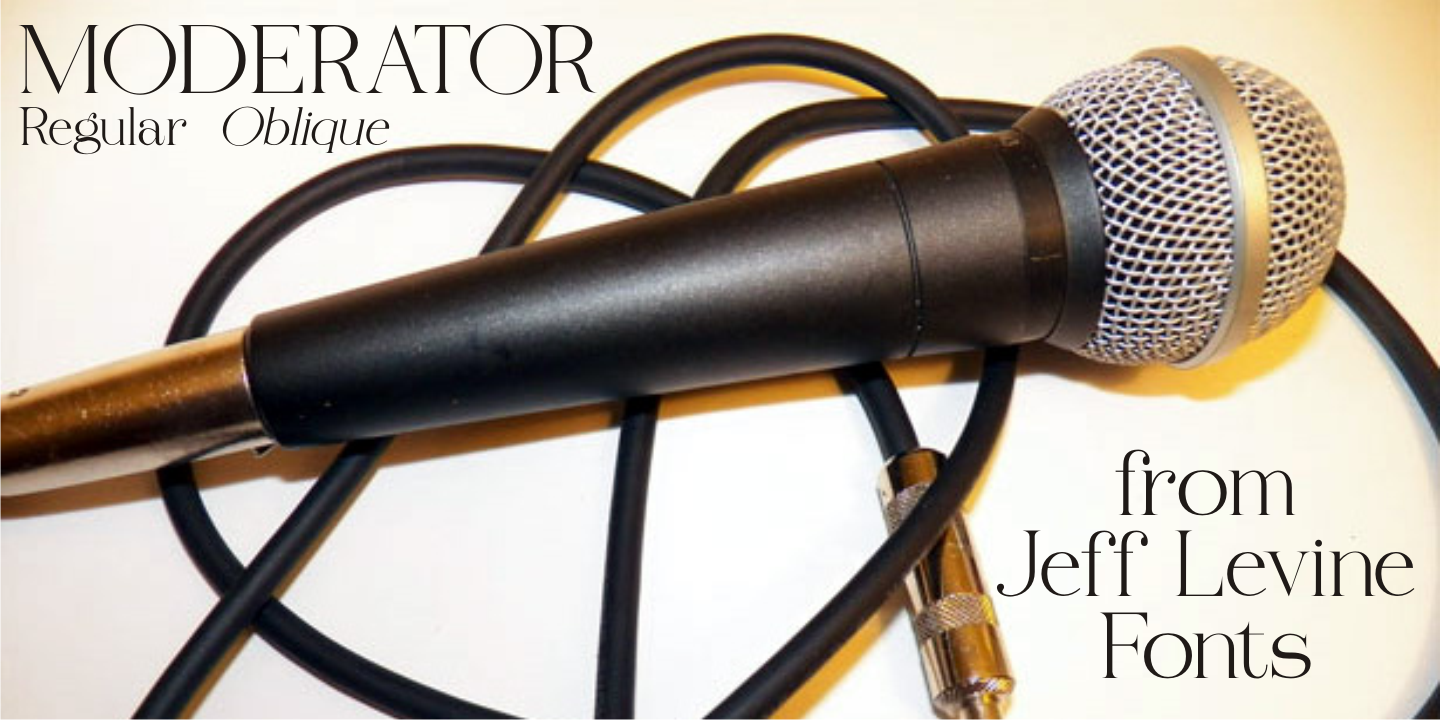
The Moderator JNL Font is perfect for professional corporate presentations, executive conference materials, business meeting agendas, moderated panel discussions, diplomatic communications, formal announcements, leadership summits, institutional signage, professional consulting materials, and authoritative business documentation.
What makes the Moderator JNL Font exciting is its exceptional ability to convey professional authority and diplomatic balance through carefully crafted letterforms that embody the essence of thoughtful leadership and measured communication. This sophisticated typeface features balanced proportions, authoritative character construction, and diplomatic design elements that instantly project credibility, fairness, and executive-level professionalism. Each letter demonstrates the careful consideration and measured approach that characterizes effective moderation and professional leadership in high-stakes environments.
The Moderator JNL Font family includes regular, bold, italic, and condensed versions, along with professional symbols, corporate ornaments, and executive-level decorative elements that enhance its authoritative appeal across various business and institutional design applications.
Whether you're creating executive presentations or designing professional conference materials, Moderator JNL Font Free Download delivers unmatched credibility and sophisticated business appeal. Its expertly balanced letterforms ensure excellent readability while maintaining that essential authoritative character that commands respect in professional environments. The font's executive features include contextual alternates, professional ligatures, and diplomatic variations that automatically create authentic corporate aesthetics. Business consultants and corporate communication specialists consistently choose this font for projects requiring genuine professional authority and executive-level sophistication. The Moderator JNL Font transforms standard text into authoritative professional communication, making it an indispensable tool for any designer's executive typography suite.